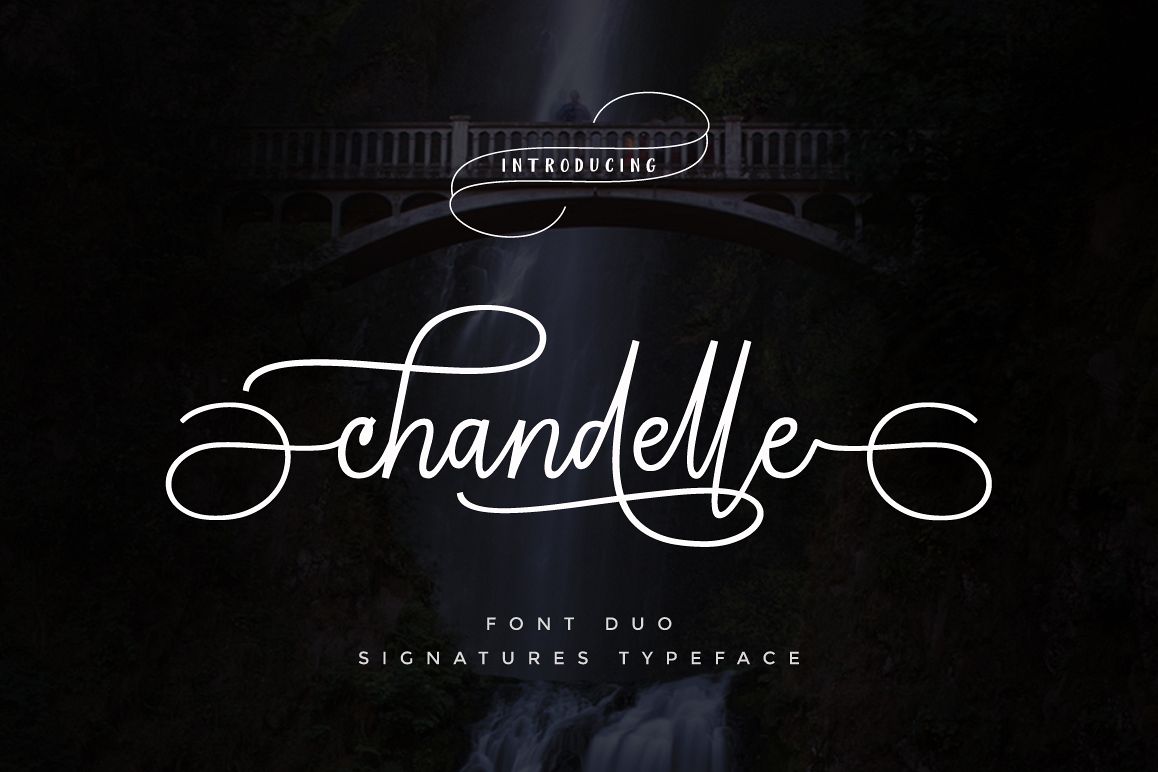
Chandelle Signatures
" Chandelle Signatures " is a handwritten signature script with a natural & stylish flow, perfectly suited to signature, stationery, logo, typography quotes, magazine or book cover, website header, clothing, branding, packaging design and more. A handwritten script font containing upper and lowercase characters, numerals and a large range of punctuation.
"Chandelle Signatures " is a must-have signature script that has a diverse set of alternates that will surely be used many times over in various projects in the future. This collection fills a void and separates itself from other scripts available.